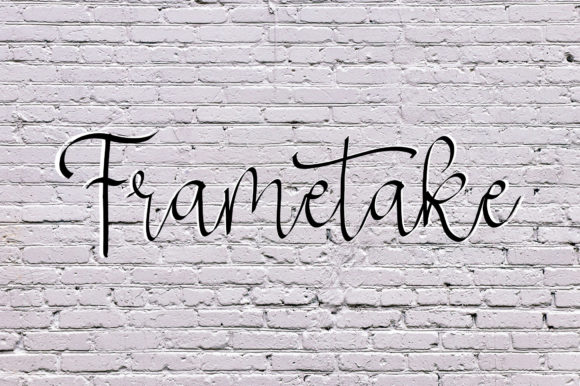
Are you looking for a font that will make your wedding invitations, save-the-dates, and other wedding-related designs look absolutely stunning? Look no further than Frametake Font! This beautiful script font is perfect for adding a touch of elegance and romance to any project.
Frametake Font is a whimsical script font with a relaxed theme, featuring a lovely style. It's perfect for creating beautiful and eye-catching designs. Whether you're a professional designer or just someone who loves to create beautiful things, Frametake Font is a must-have for your collection.
Here are just a few of the reasons why you'll love Frametake Font:
* It's incredibly versatile. Frametake Font can be used for a wide variety of projects, from wedding invitations to social media graphics to website design.
If you're looking for a beautiful and versatile script font that will make your designs look amazing, then Frametake Font is the perfect choice for you!